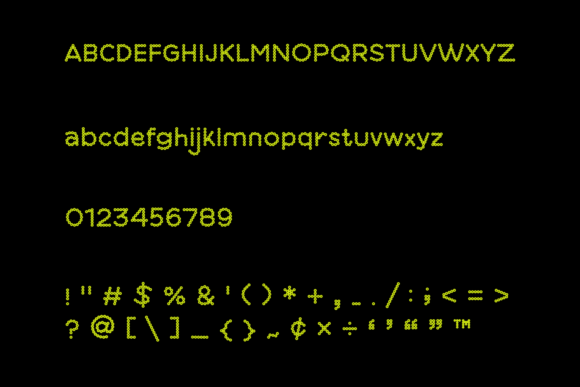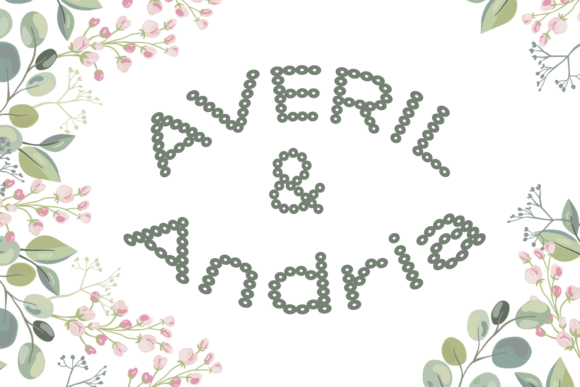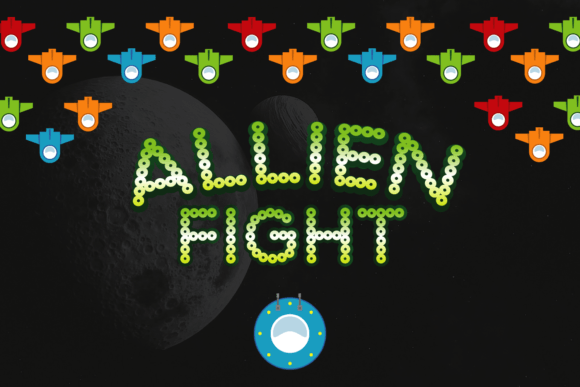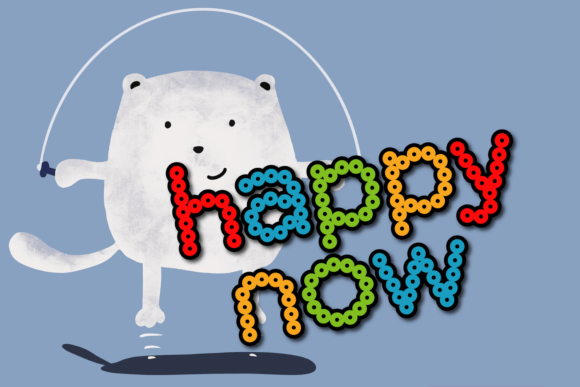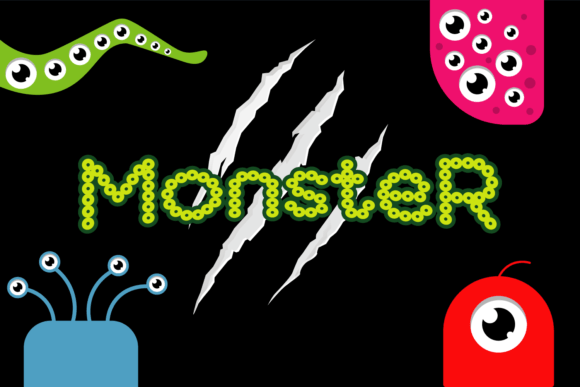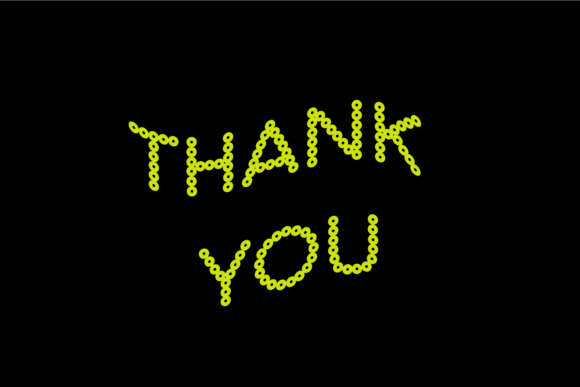
Introduction to Pop the Bubble Font
Pop The Bubble, font brings retro gaming experience back to your life, with the playful details on each glyph’s making it even more stunning.
Each glyph is carefully crafted to perfection, without even losing its playfulness Pop The Bubble font are perfect for a a game interface, cartoon movie, animation and even an invitation card.
Pop the Bubble Font offers exceptional quality and versatility, making it a valuable addition to your design toolkit. Whether you’re creating for personal projects or commercial use, Pop the Bubble Font delivers professional results.